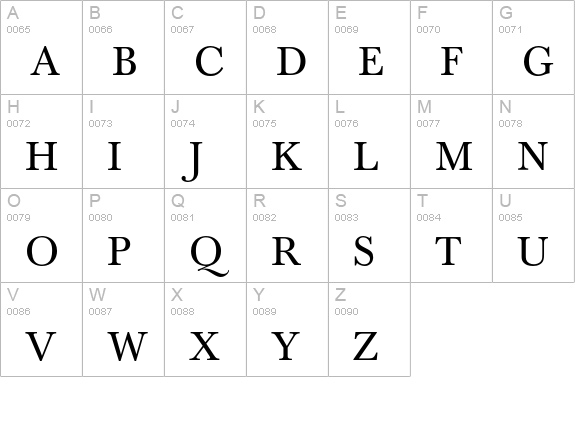
Baskerville Expert Regular OsF is the standard, neutral variant in the Baskerville typeface family \xE2\x80\x94 well suited to general body text, paragraphs, and standard typographic work.
The Baskerville Expert Regular OsF font is a timeless and elegant typeface that exudes sophistication and refinement. With its classic serif design and impeccable letterforms, this font is perfect for adding a touch of elegance to any project. Whether you're designing a wedding invitation, creating a professional document, or crafting a logo, the Baskerville Expert Regular OsF font will elevate your work to the next level. The best part? This exquisite font is available for free download at FontsMarket.com. You can easily access this premium typeface without any cost, making it a valuable addition to your font library. Don't miss out on the opportunity to enhance your design projects with the beauty and grace of the Baskerville Expert Regular OsF font - download it for free today!